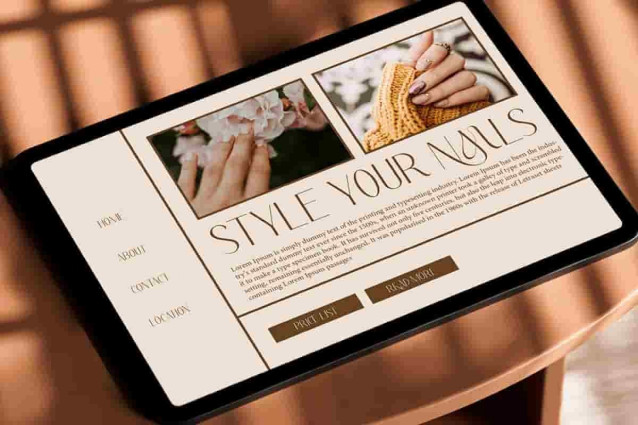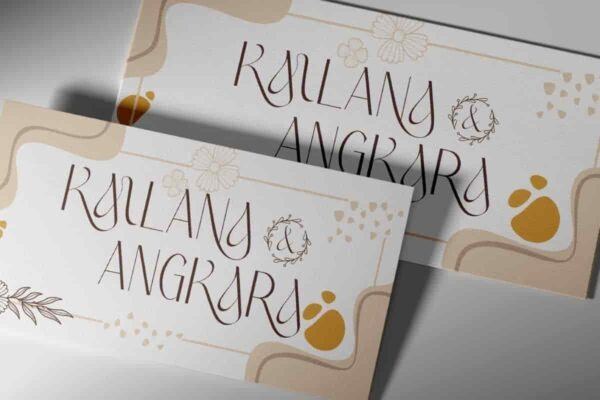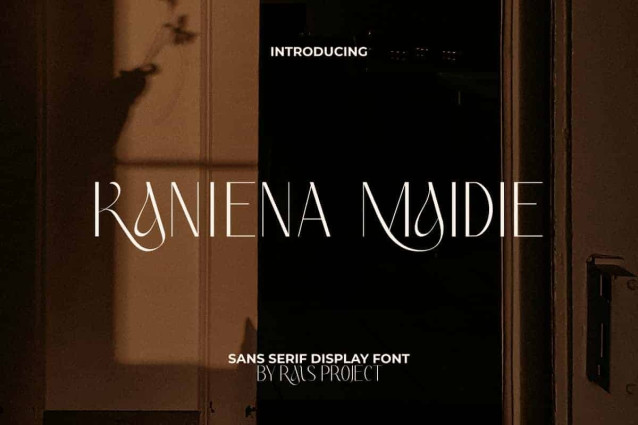
Kaniena Maidie Font
Kaniena Maidie Font is an elegant beautiful sans serif display font, created by RaisProject. This font has a unique character so it can add an attractive aesthetic to your design. It will look good on invitation, stationery, poster, custom design, product packaging, quotes, signage, brand image, advertisement, label, marketing material, website page, and more!
Kaniena Maidie Font includes a full set of ALL CAPS for Uppercase and Lowercase Letters, Numerals, and large range of Punctuation. This lovely font also contain Ligature character that will be suitable for various industries, such as fashion, jewelry, cafe, event or wedding organizer, photography, printing, publishing, etc.